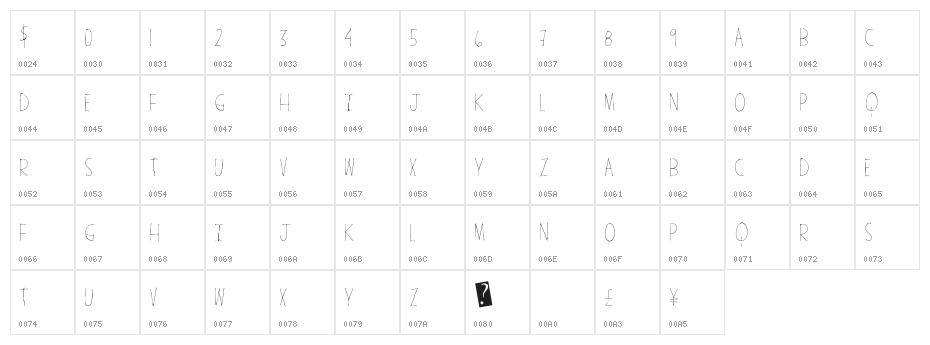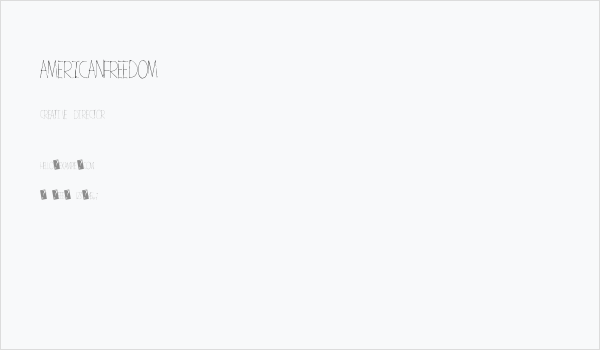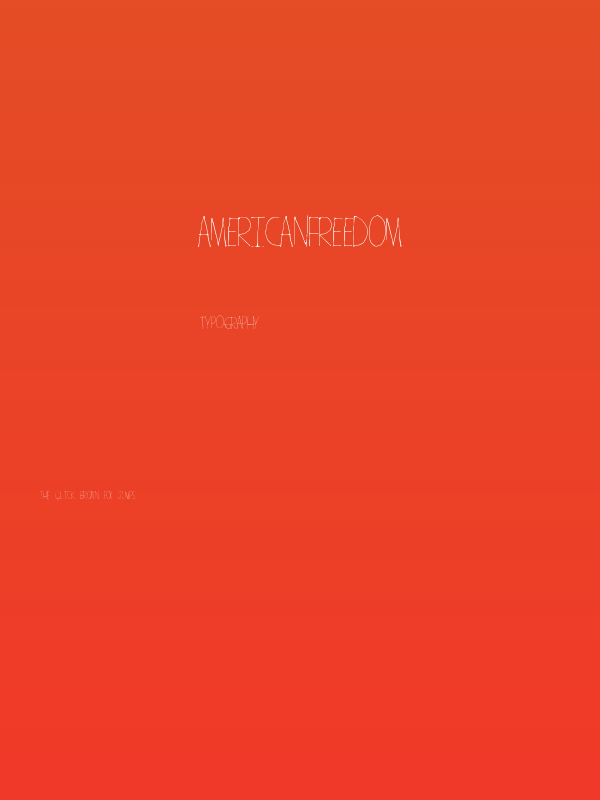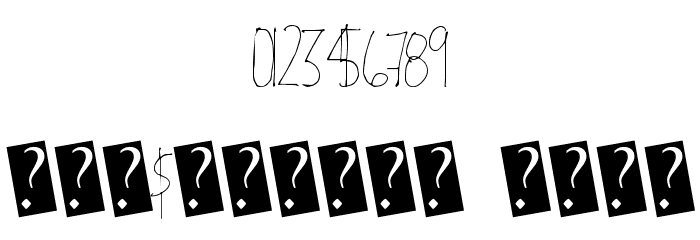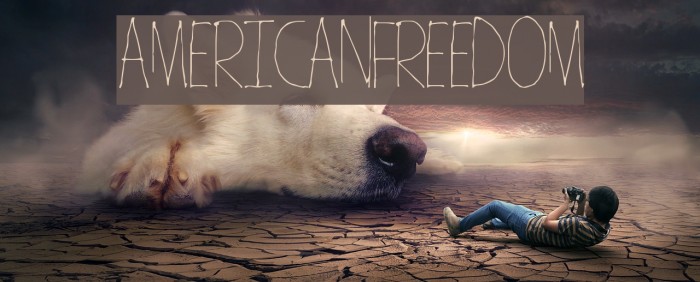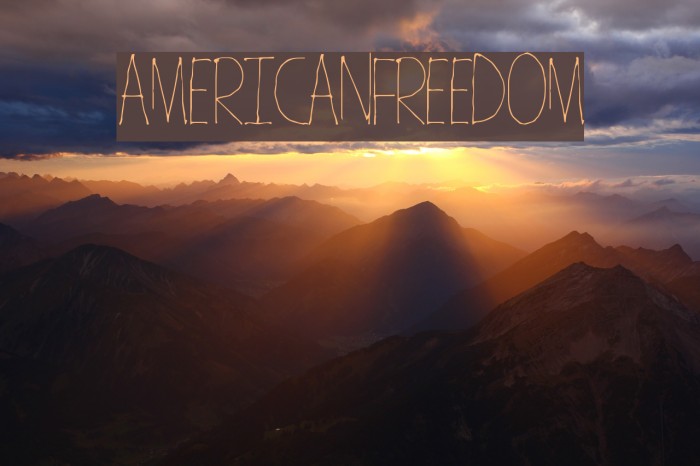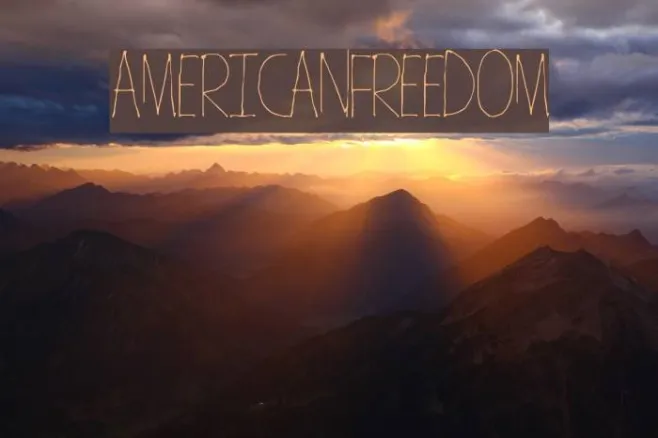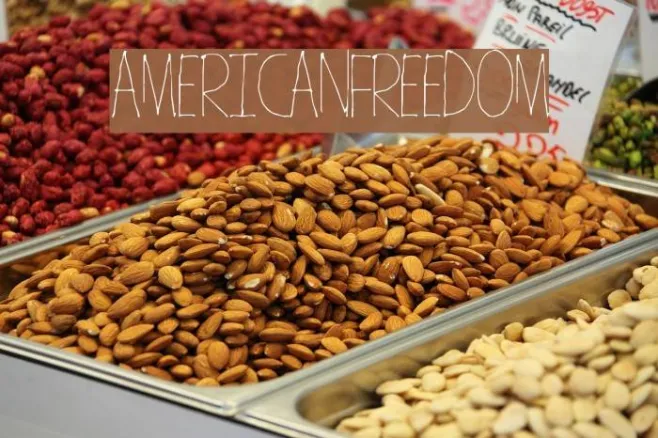
AmericanFreedom Font
AmericanFreedom Description
This font features a unique, hand-drawn style with thin, elongated strokes that give it a whimsical and artistic appearance. The characters are slightly irregular, adding to the handcrafted feel. The uppercase and lowercase letters maintain a consistent style, with a playful yet elegant look. The numbers and special characters follow the same design principles, ensuring uniformity across all glyphs. This font's distinctiveness makes it suitable for creative and expressive projects, where a touch of individuality is desired.
| Use Case | Logos, Posters, Artistic projects |
| Proposed Projects | Ideal for artistic projects, invitations, greeting cards, posters, and branding that seeks a unique, handcrafted touch. |